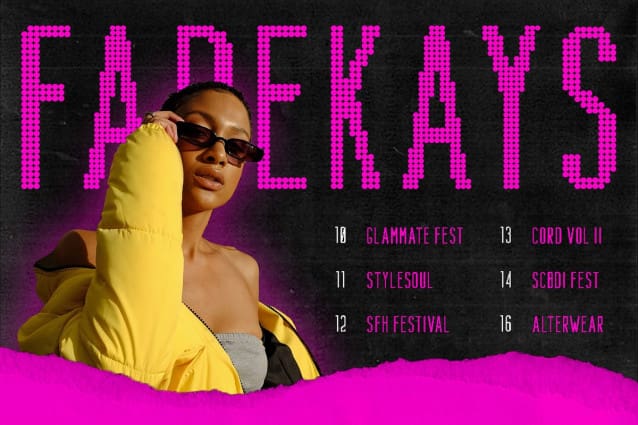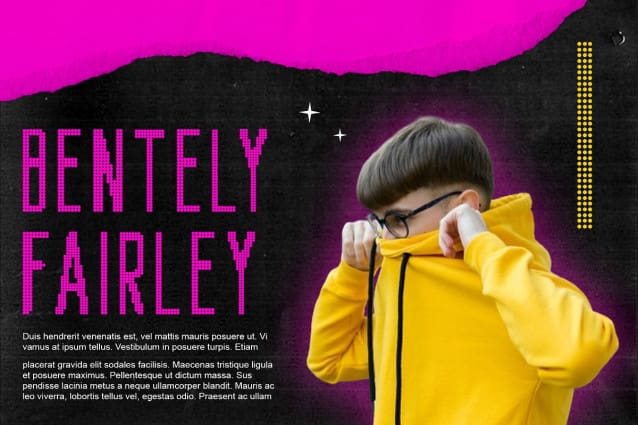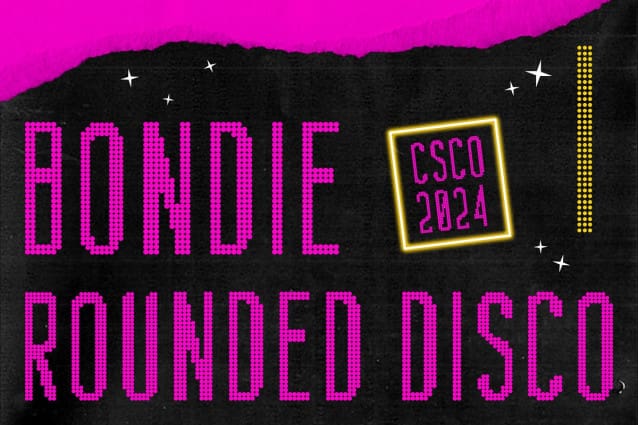
Bondie Rounded Disco Font
Bondie Rounded Disco Font: A Groovy Display Typeface. Sleek and Condensed Bondie Rounded Disco features a sleek and condensed sans serif design, perfect for grabbing attention in display projects. Its streamlined appearance ensures maximum impact in limited spaces.
Disco-inspired Effects Channeling the vibrant energy of disco, this font dazzles with its dynamic effects. Each letter pulsates with rhythm, adding a touch of excitement and flair to your designs.
Tailored for Display Needs Crafted specifically for display purposes, This font excels in various contexts, from posters to album covers. Its eye-catching style ensures that your message shines brightly.
Versatile and Playful Despite its bold and condensed form, This font offers versatility and playfulness. Whether used for branding, packaging, or digital media, it injects a dose of fun into any project.
Get Your Groove On This font is more than just a font; it’s a celebration of style and rhythm. With its condensed sans serif design and disco-inspired effects, it adds a funky touch to any display project, ensuring that your message hits all the right notes.